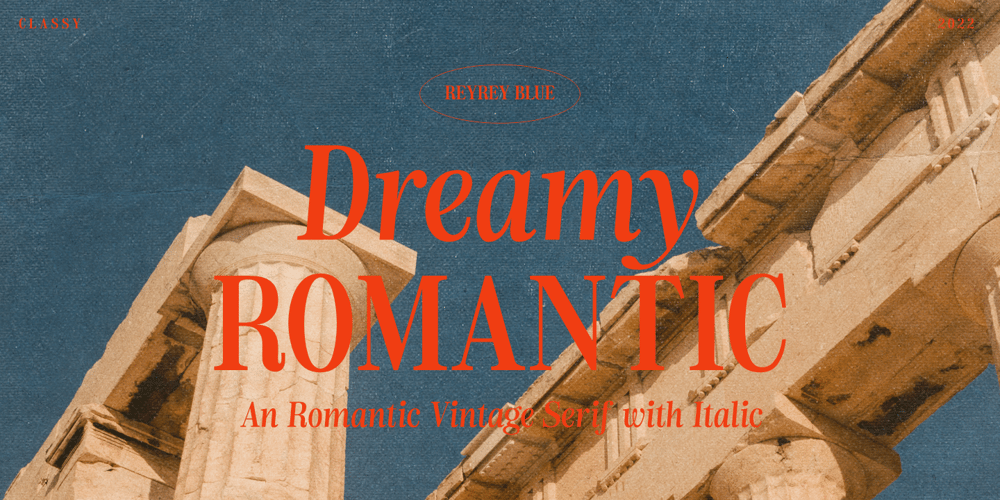
Dreamy Romantic Font Family was designed by Risca Anitawati and published by Reyrey Blue Std. Dreamy Romantic contains 2 styles and family package options. Dreamy Romantic is the new serif typeface with clean curve and elegant look. It has two versions of the font, in regular and italic version, very suitable for your design needs such as creating nostalgic designs project.Dreamy Romantic is t for applying to poster designs, branding, magazines, merchandise, logos or any kind of advertising purpose.Features : All Uppercase and Lowercase Number & Symbol Supported Languages Ligatures PUA Encoded